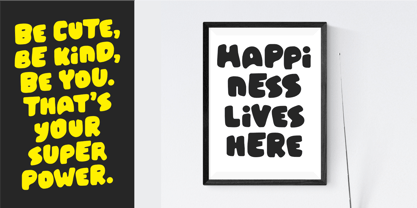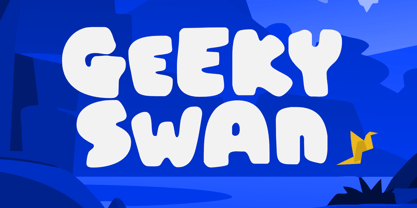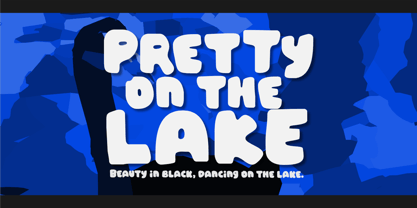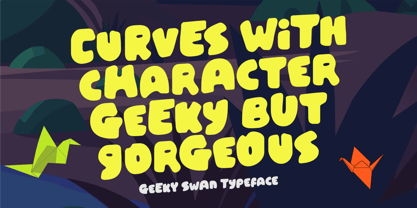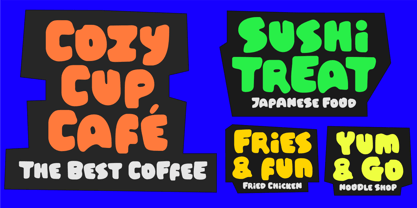
Geeky Swan
by Olivetype
The Geeky Swan Font Family was designed by Nurul Hidayani and published by Olivetype. Geeky Swan contains 1 styles.
Geeky Swan is a bold, fun, and playful display typeface that brings instant charm and personality to any design. With its quirky curves, chunky shapes, and unique letter styling, this font is crafted to make your message stand out in the most delightful way. Every character feels expressive, giving your designs a touch of humor, creativity, and confidence all at once. Perfect for both digital and print use, Geeky Swan shines in a wide range of projects. Use it for movie titles, gaming graphics, poster headlines, product packaging, logo design, branding kits, merchandise, labels, apparel prints, invitations, social media posts, and creative advertising. Its bold appearance ensures maximum visibility, while its playful style brings an inviting and youthful energy to every layout. Whether you're building a quirky brand identity, designing eye-catching packaging, or crafting a standout title for a game or film, Geeky Swan delivers a fun twist without losing impact. Its versatile charm makes it suitable for both kids’ concepts and expressive modern designs. Let Geeky Swan give your work a voice that’s both stylish and memorable—cute, confident, and full of character.